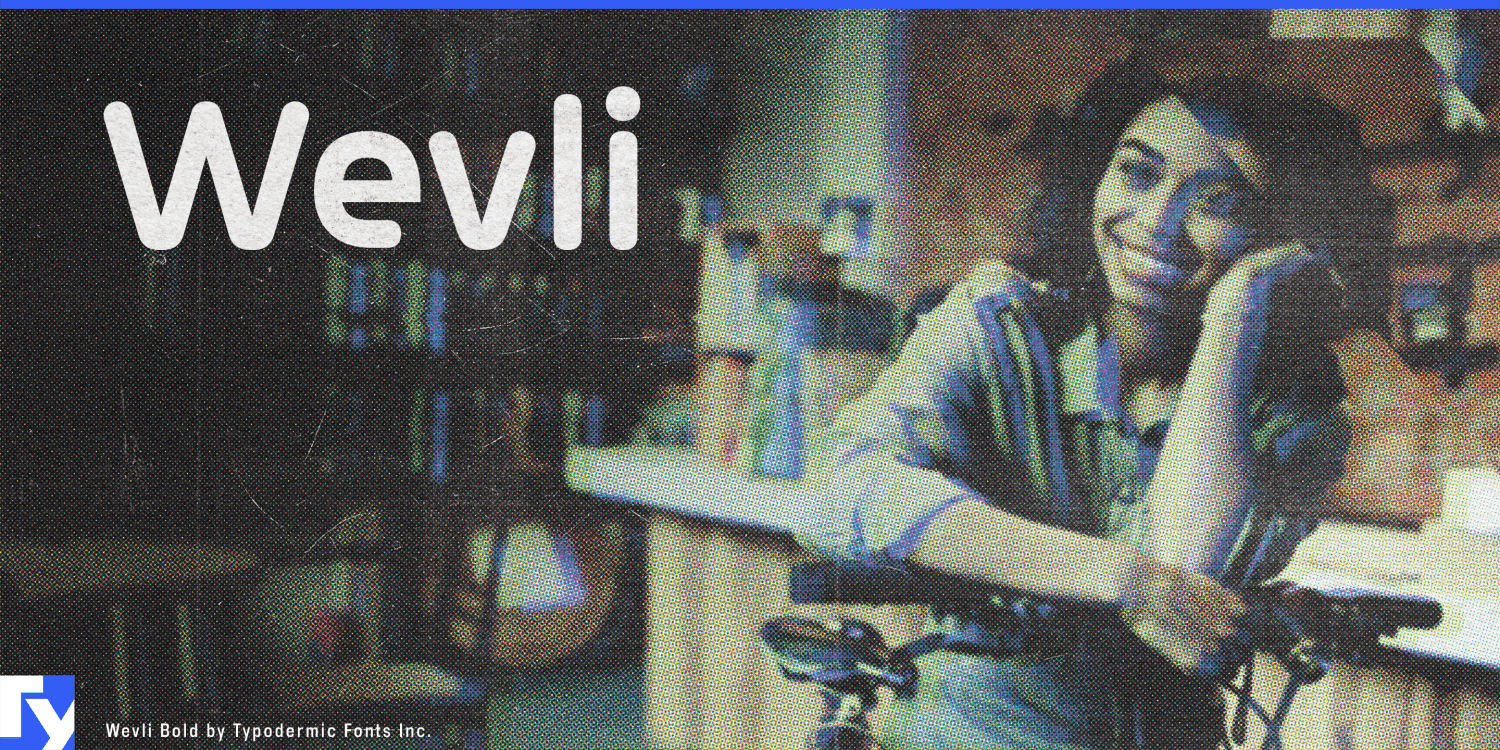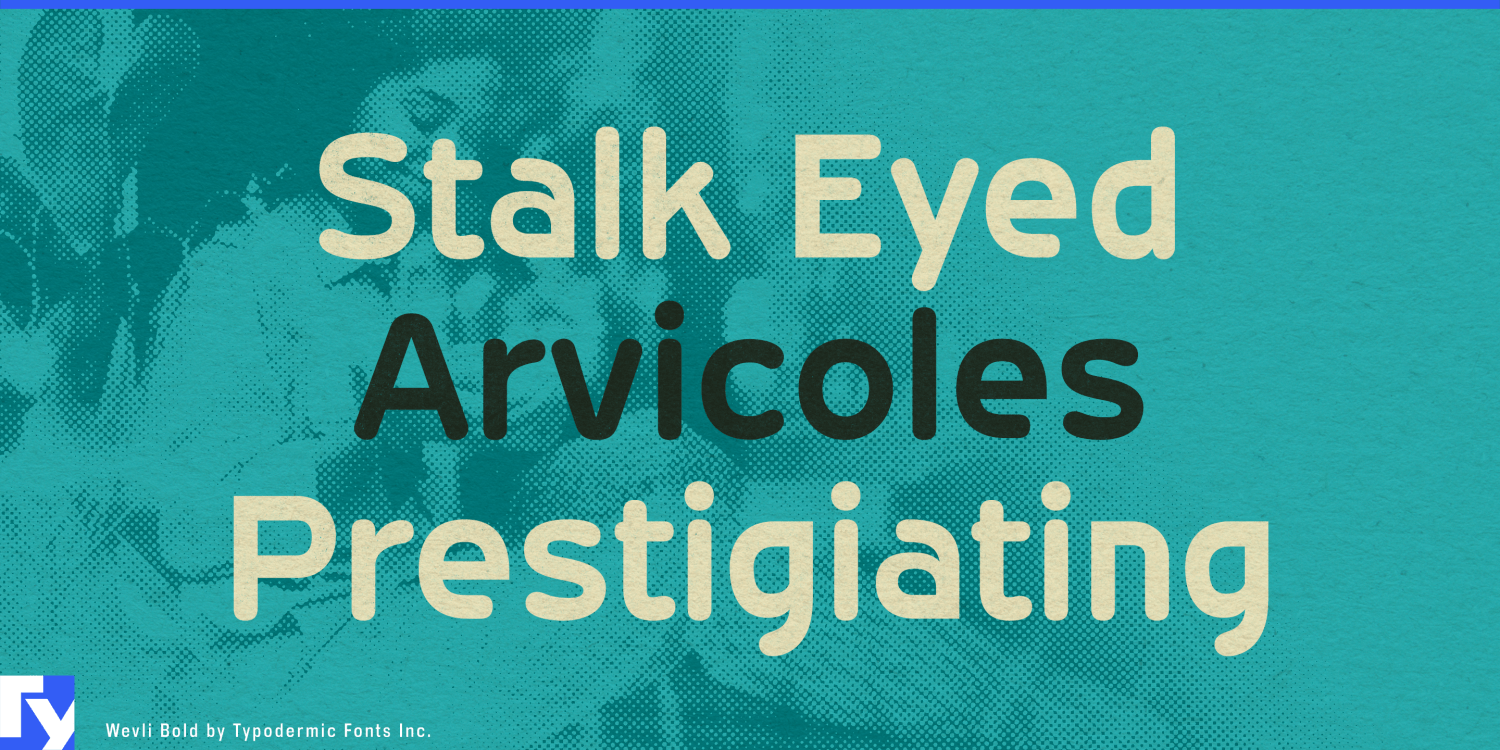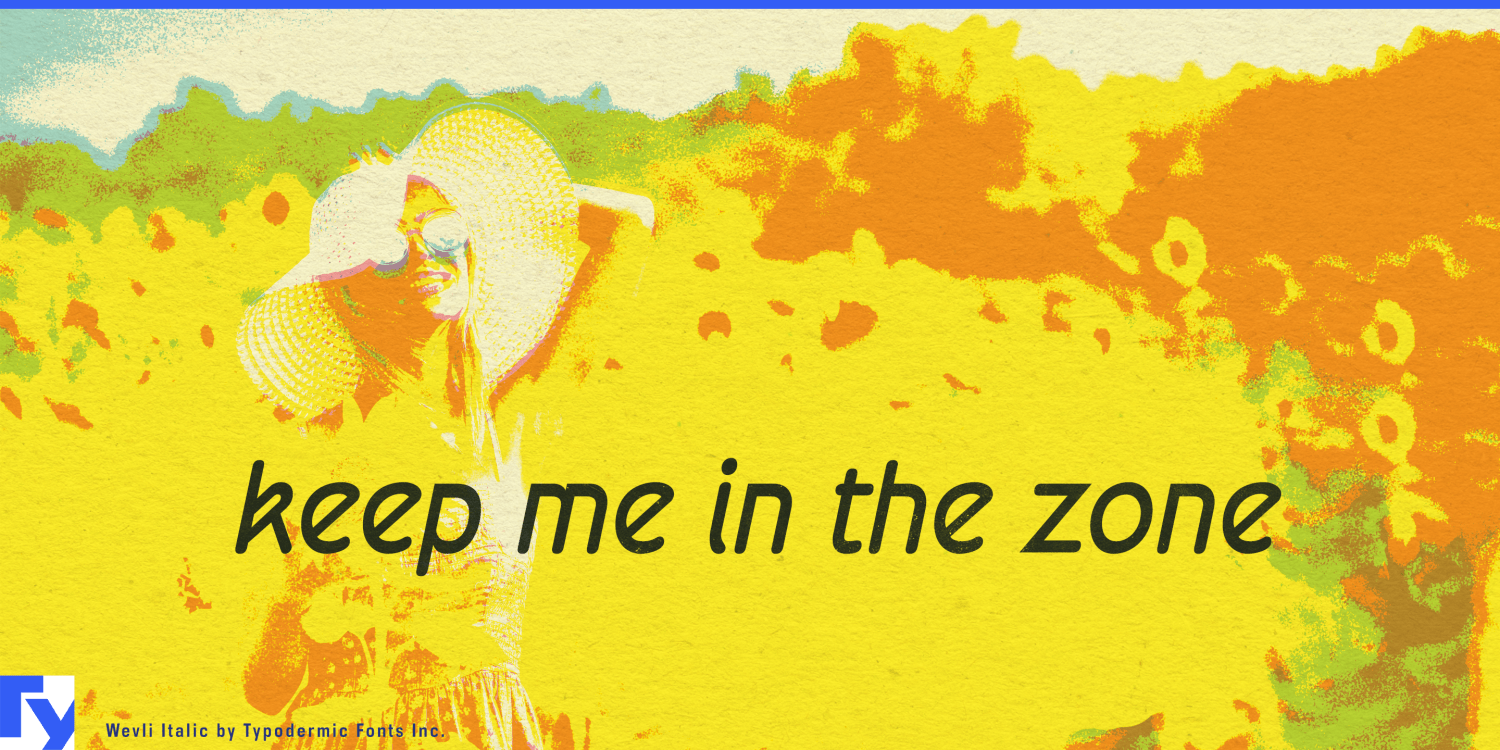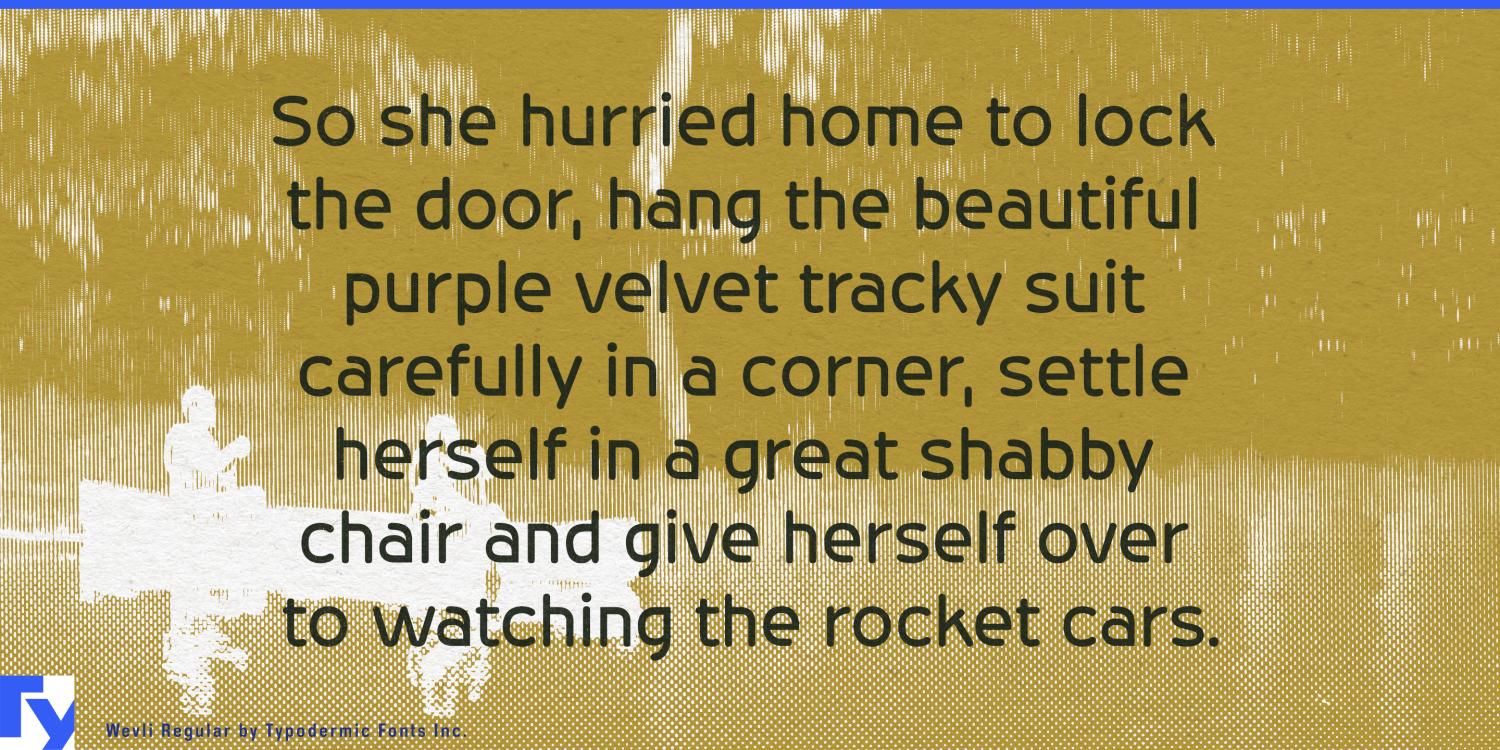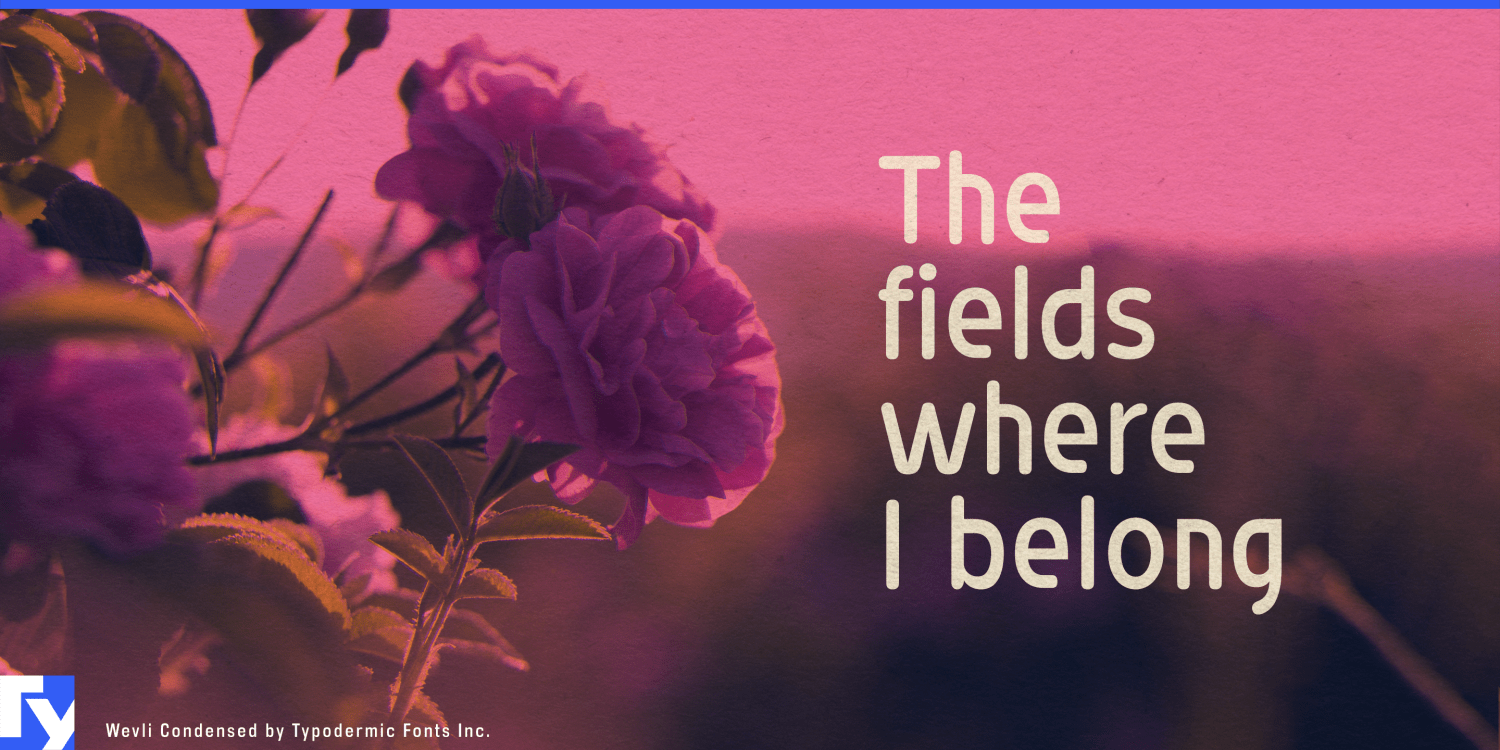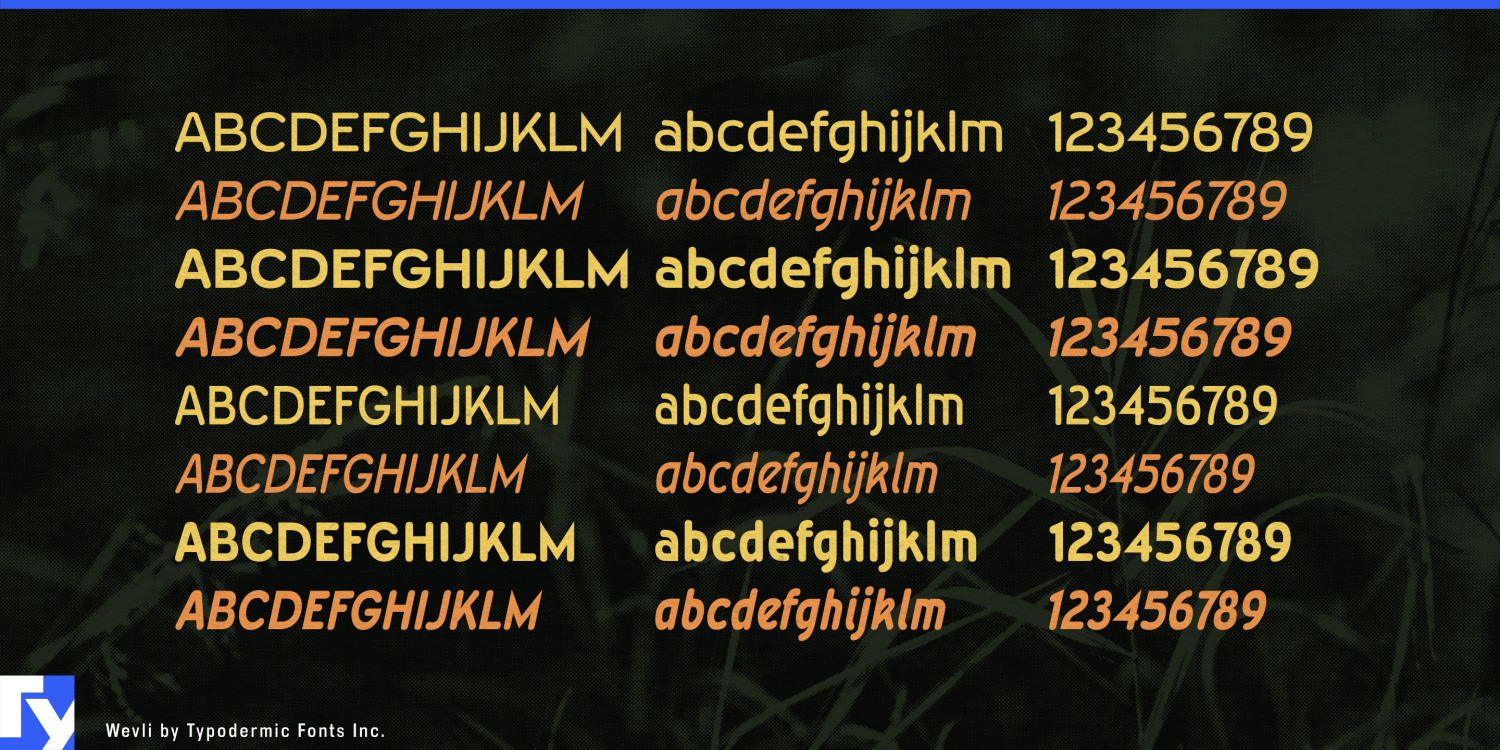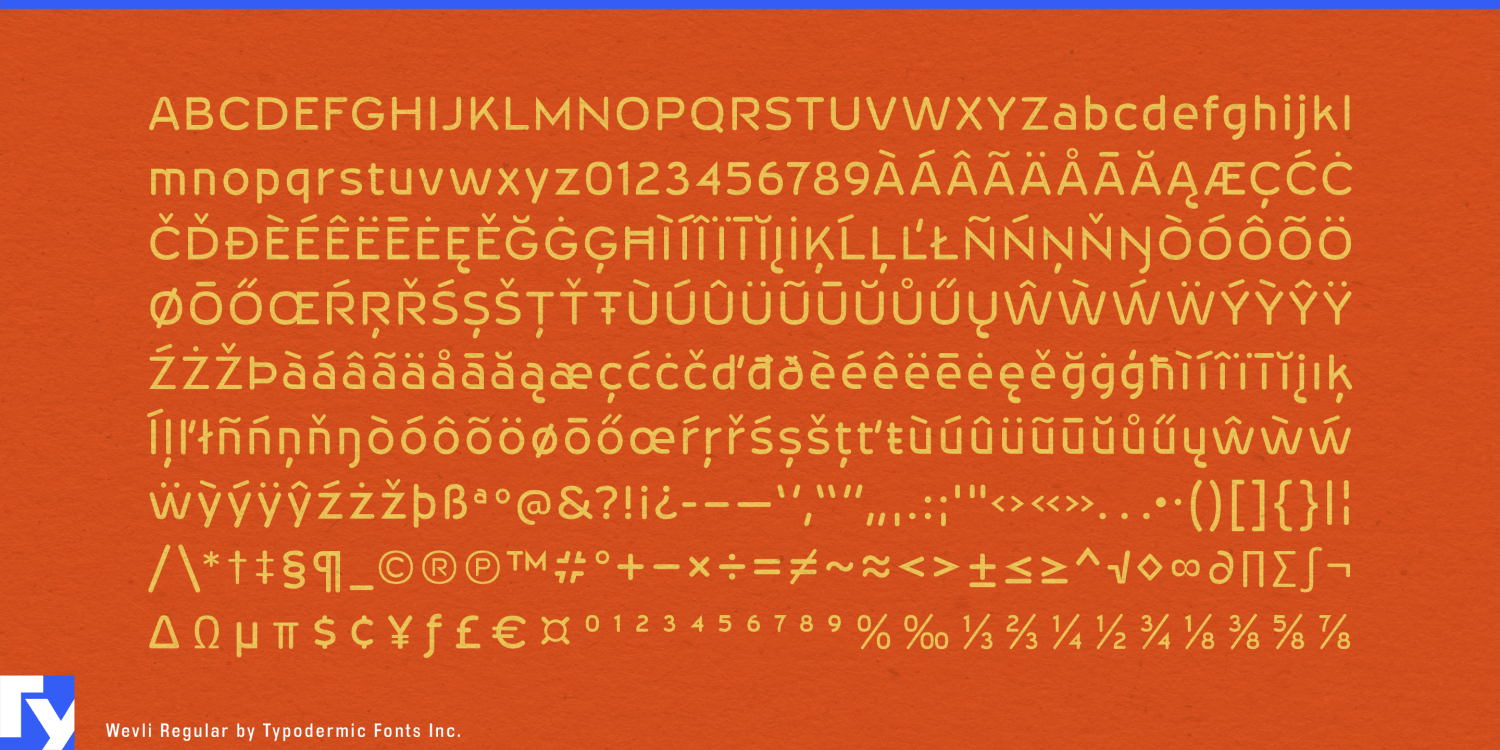
Wevli
Font Family by Typodermic
Wevli: a typeface that transcends earthly design boundaries, as if beamed down from an advanced alien civilization. This otherworldly font family transmits ideas across the vast expanse of creative space with unparalleled clarity and style.
Imagine glyphs carved by extraterrestrial precision tools, each character a perfect balance of sharp, angular strokes and fluid, organic curves. Wevli’s letterforms echo the architecture of cosmic vessels, where every line serves a purpose and every curve optimizes flow. The razor-sharp vertices slice through visual noise like the prow of an interstellar craft, while the quarter-squared bowls create pockets of negative space that seem to defy gravity. But Wevli is more than a visual specimen from beyond the stars. It’s a complete communication system, offering two weights, two widths, and italics—a morphological range as vast as the cosmos itself. This flexibility allows you to modulate your message across dimensions, from the whisper-thin transmissions of distant nebulae to the bold proclamations of galactic emperors.
The inky technical pen aesthetic of Wevli evokes the urgent scrawls of xenolinguists decoding alien transmissions. Each stroke pulses with the energy of a quantum transmission, creating a sense of movement that propels the reader’s eye forward at light speed. Wevli speaks in tongues both familiar and foreign, supporting a vast array of Latin-based European writing systems. From the ice plains of Iceland to the sun-baked savannas of Swahili-speaking Africa, this typeface bridges linguistic galaxies with ease. It’s equally at home spelling out “Greetings, Earthlings” in English or crafting interplanetary peace treaties in Luxembourgish.
Why settle for terrestrial typography when you can elevate your designs to cosmic heights with Wevli? It’s a portal to typographic dimensions yet unexplored. Let Wevli be the universal translator for your most audacious ideas, and watch as it transforms your projects into messages worthy of intergalactic transmission. The future of communication is here, and it speaks in the bold, innovative language of Wevli.